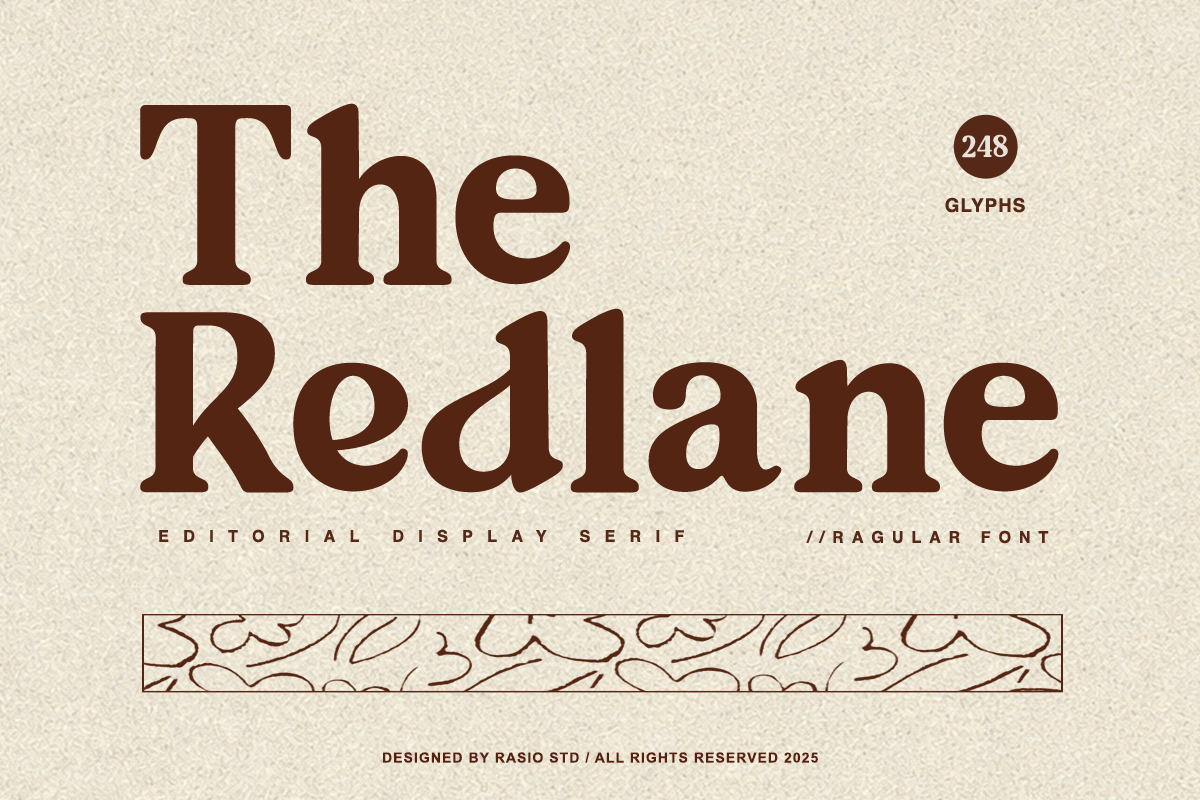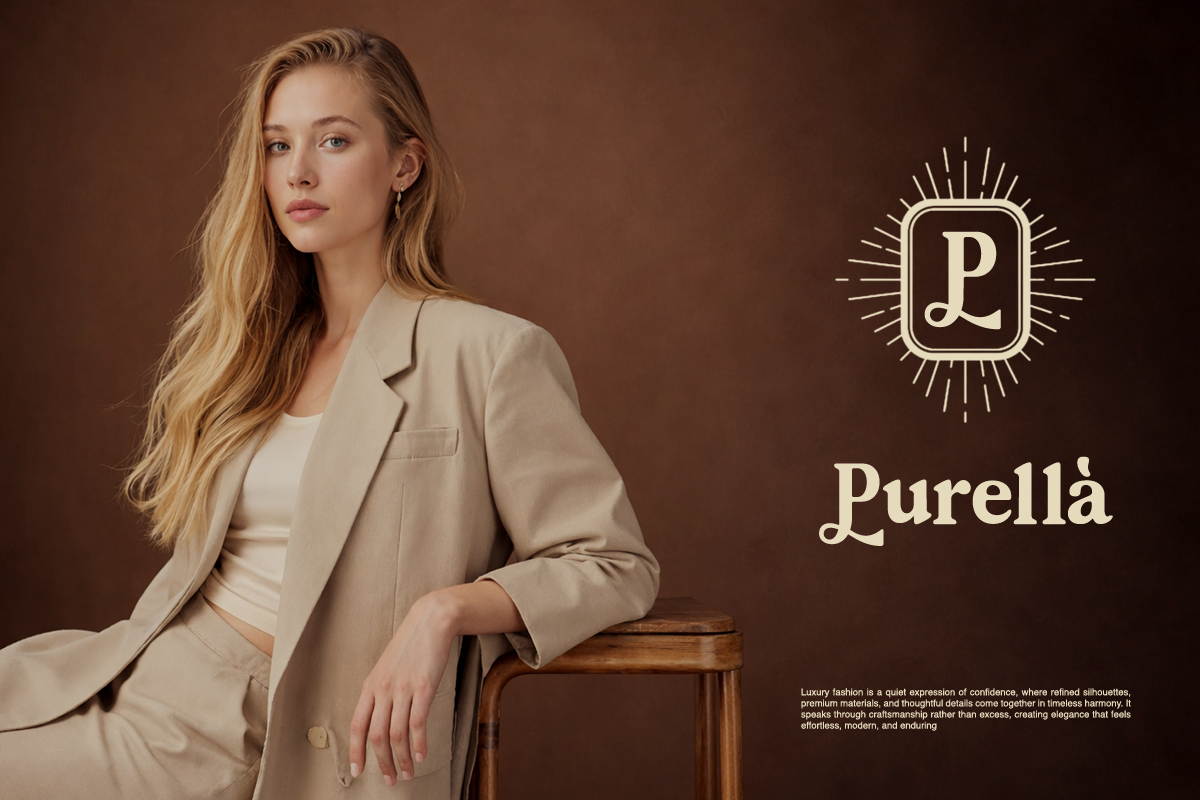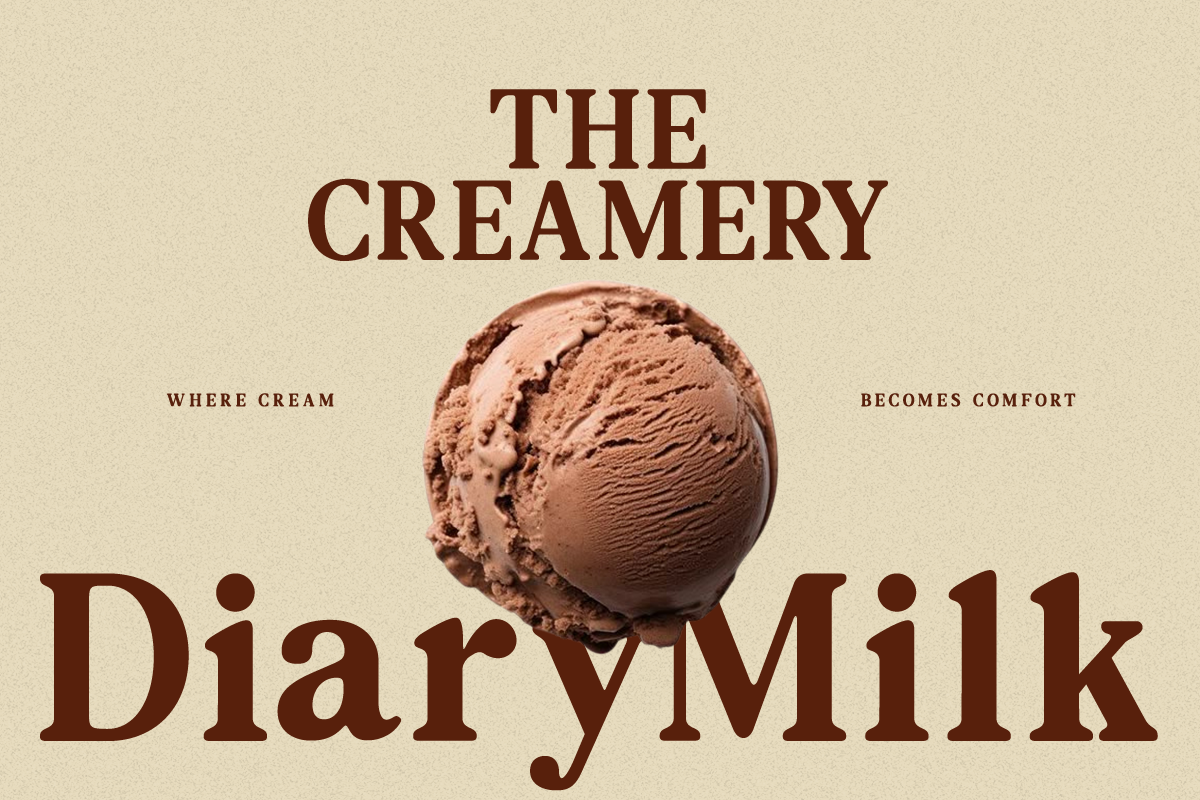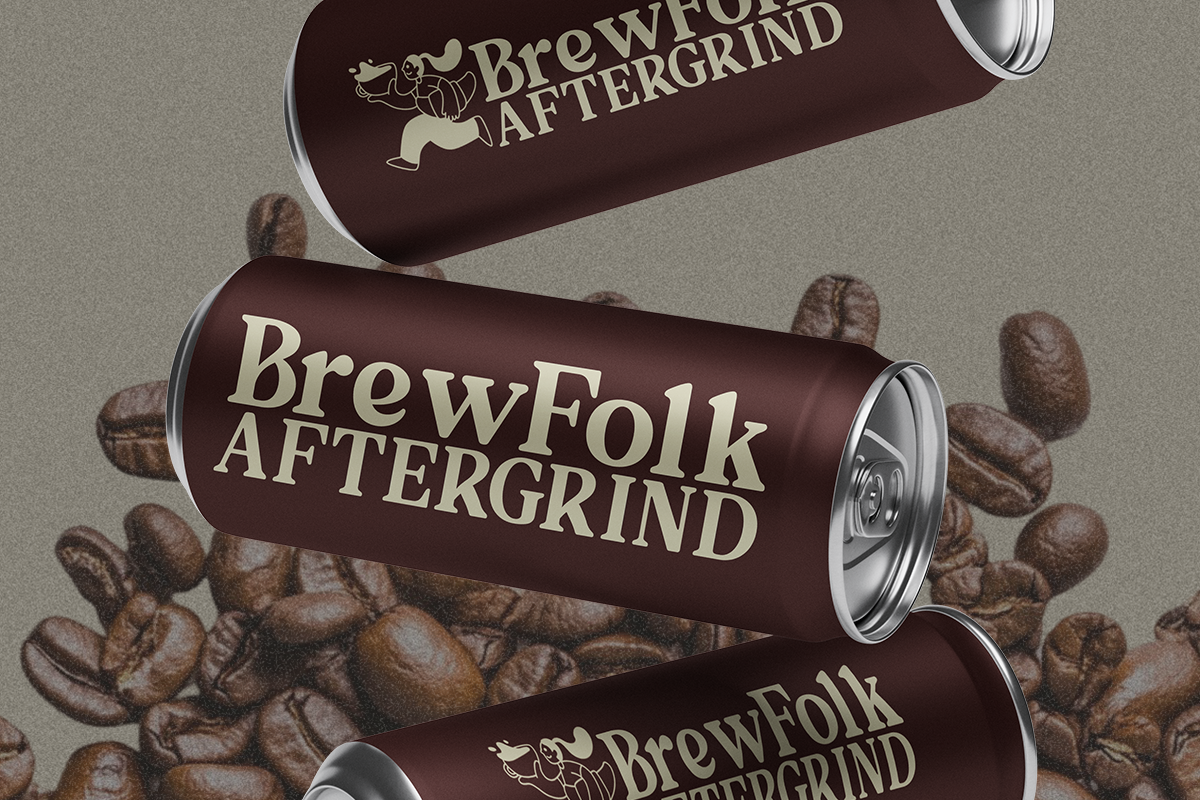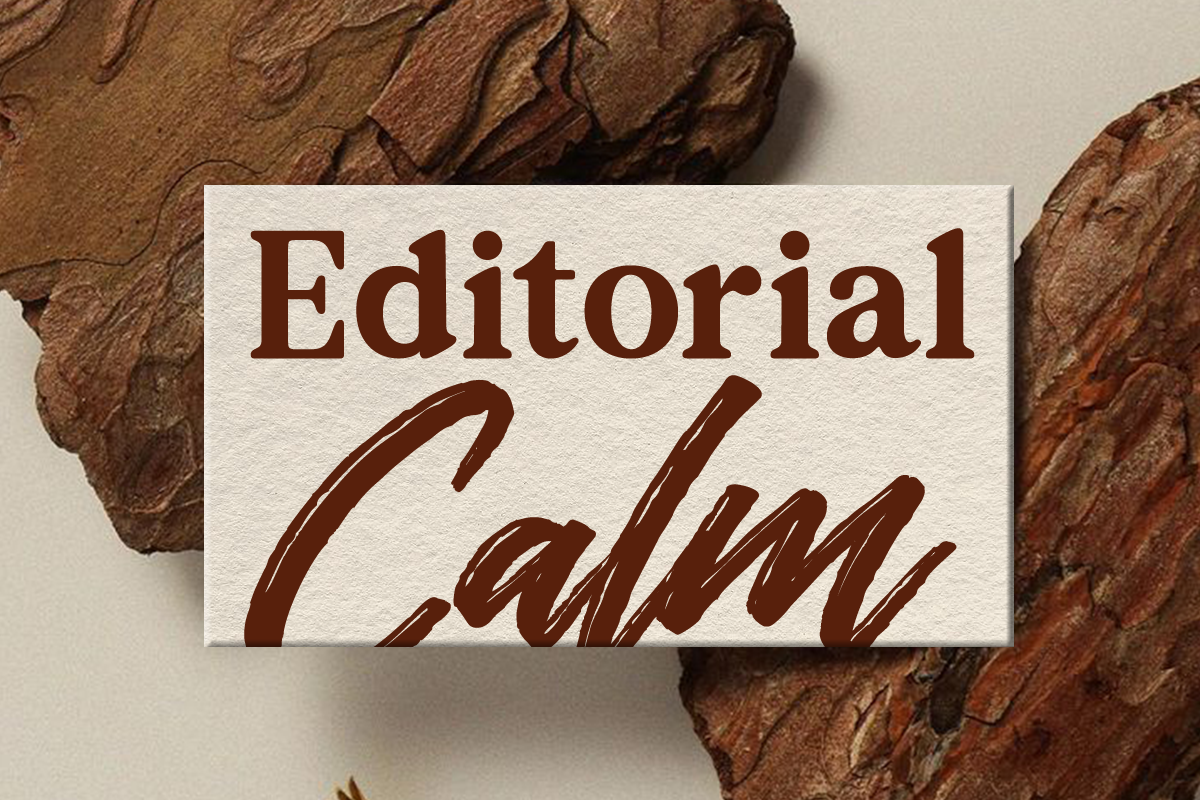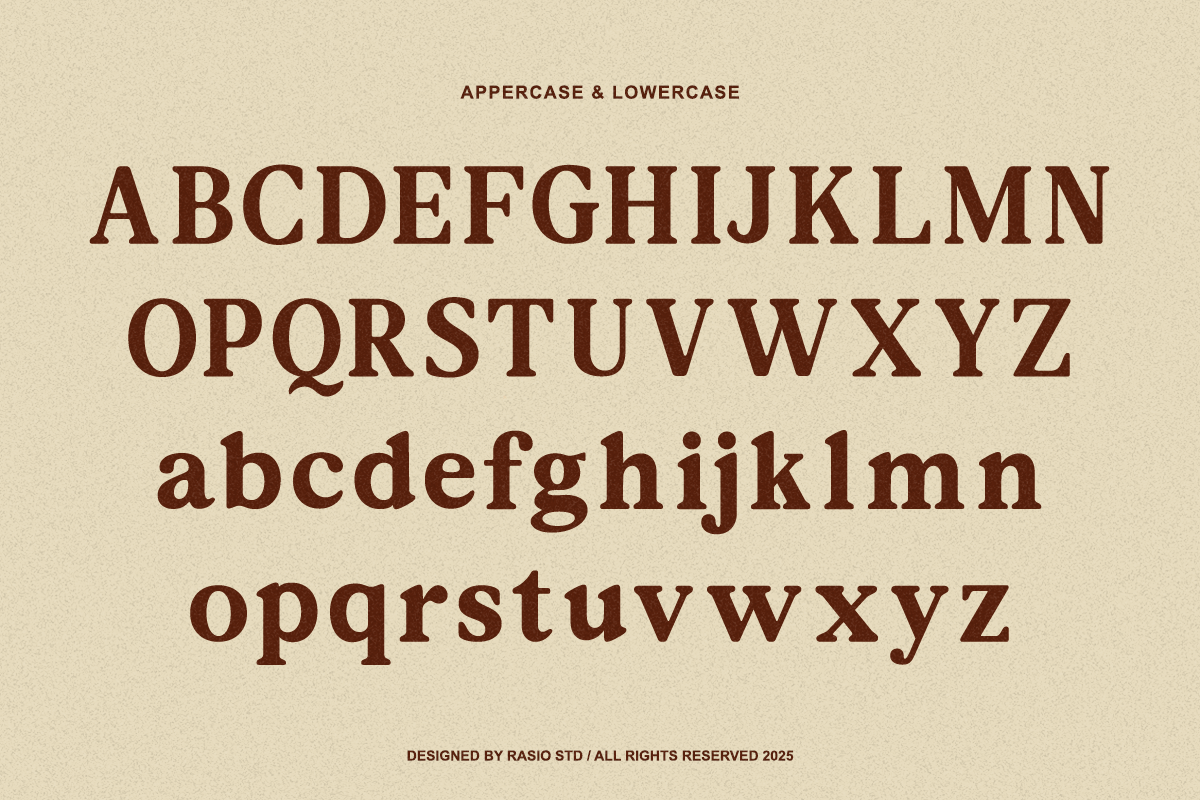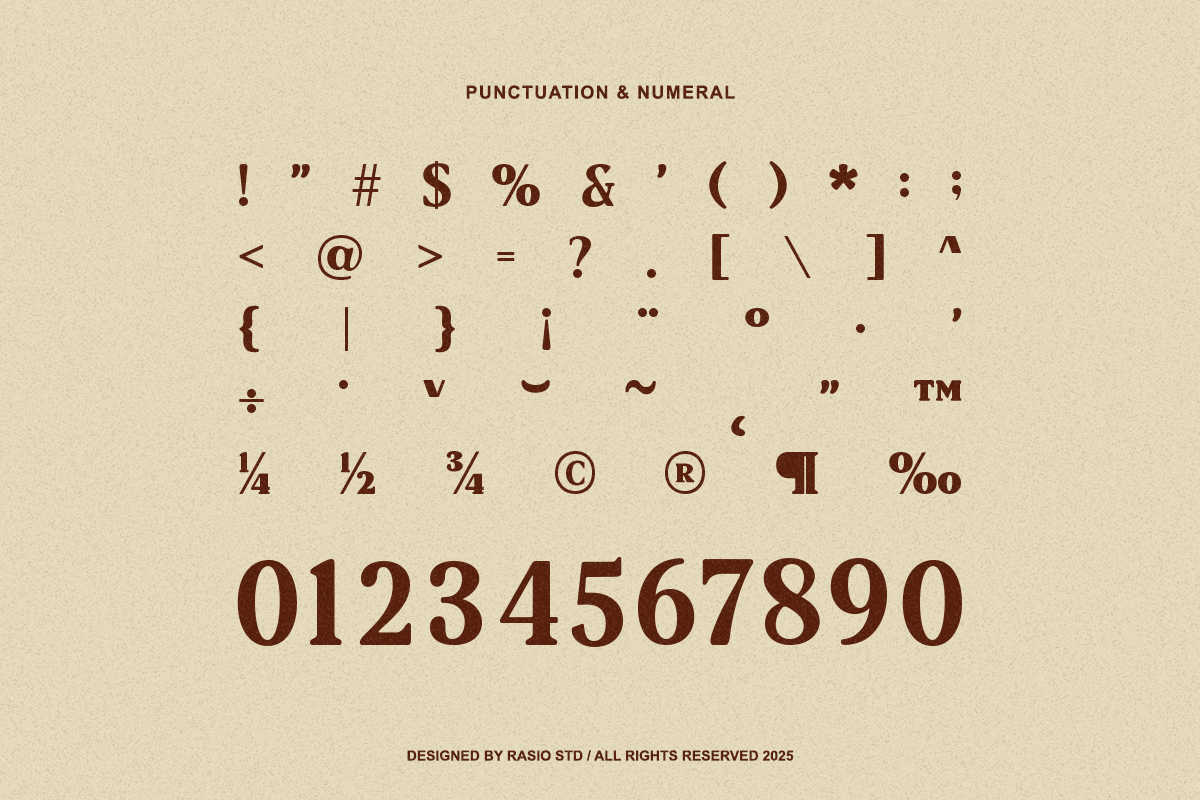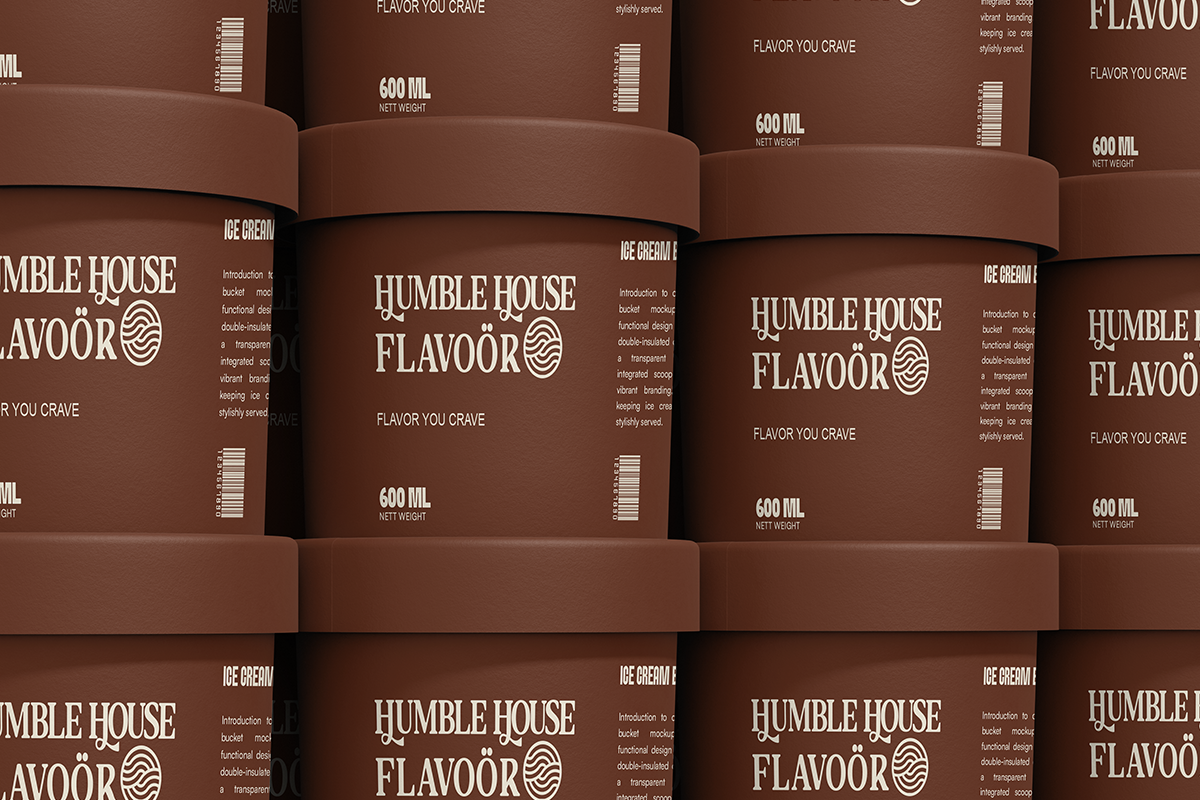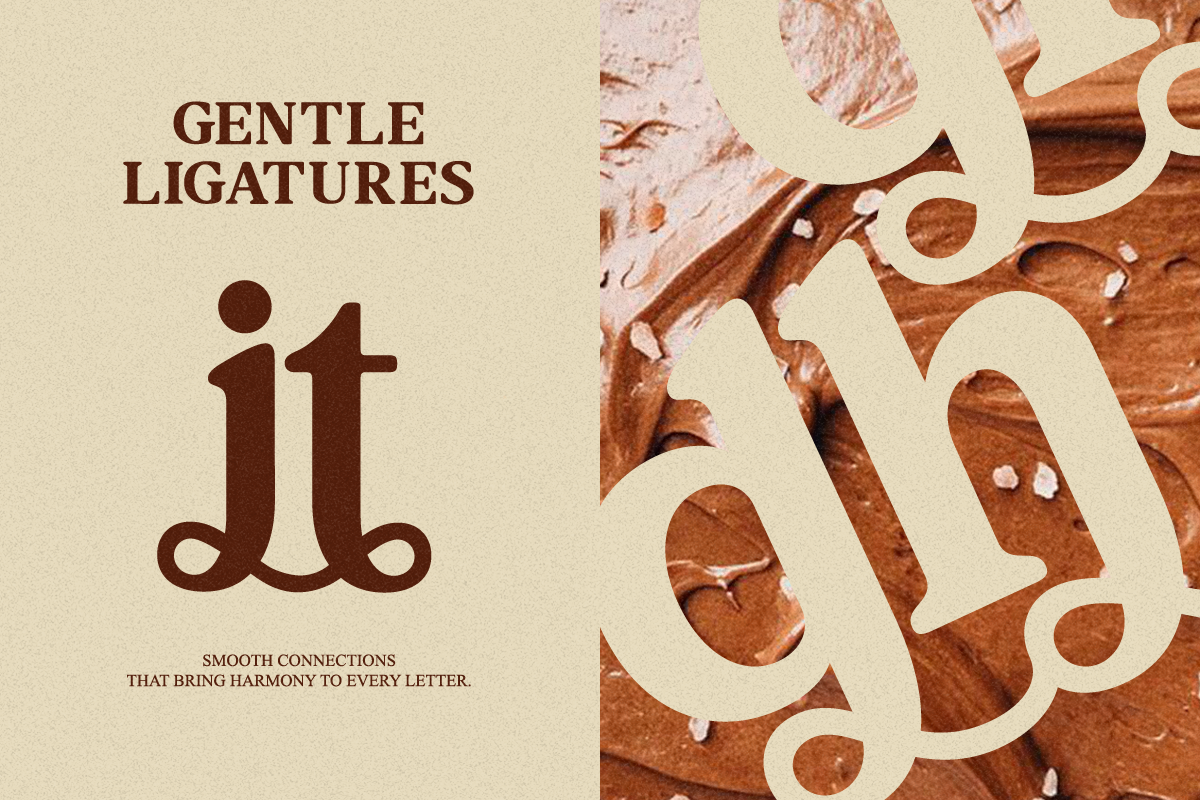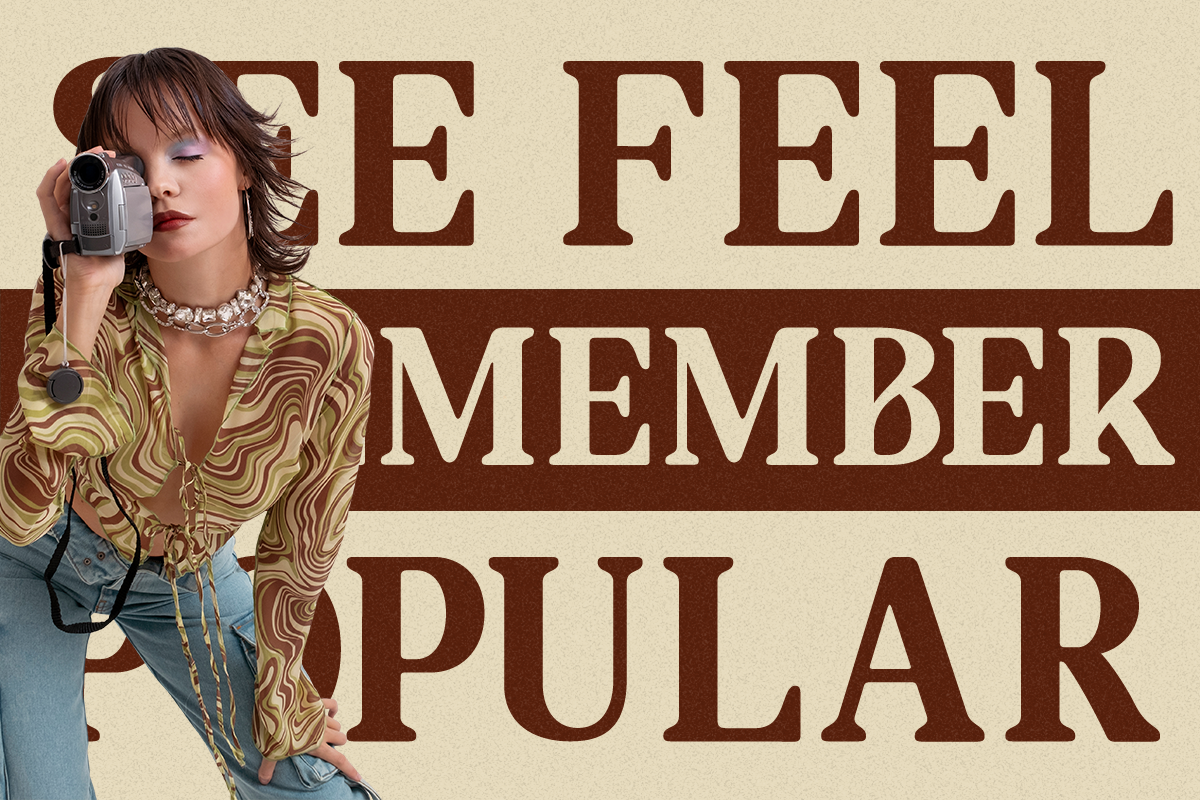
The Redlane Editorial Serif Font
The Redlane is a refined editorial display serif typeface that blends timeless elegance with a bold, contemporary personality. Inspired by classic print editorial styles and vintage packaging, it brings a soft sophistication to modern design applications. Each character is thoughtfully crafted with strong contrast, soft curves, and distinctive serifs that deliver both visual impact and warmth.
Relevance and Use Cases is perfect for food branding, artisan goods, coffee packaging, dessert menus, vintage-style promotions, editorial spreads, and boutique logos. Its balance of classic serif roots and modern warmth allows it to suit both retro and contemporary projects, especially where a soft yet bold presence is needed.
- Classic editorial serif structure with a warm vintage influence
- Moderate stroke contrast balancing readability and refined style
- Softly bracketed serifs for a smooth and approachable appearance
- Elegant curves and subtle calligraphic touches in key characters
- Well-proportioned spacing for both headline impact and paragraph clarity
- Editorial layouts, magazines, and book design with a classic serif tone
- Branding projects that require a refined, warm, and timeless identity
- Packaging and label design for artisanal, heritage, or lifestyle products
- Posters, invitations, and printed materials with an elegant vintage feel
- Social media and marketing visuals that highlight sophistication and readability